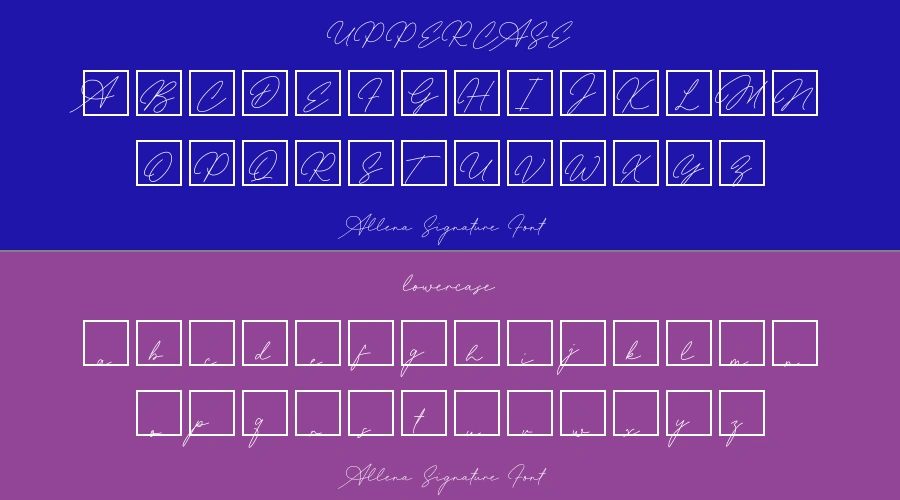
About Allena Signature Font
Designed with precision, Allena Signature Font merges decorative elements with functionality in every character. This versatility makes it particularly effective for engineering drawings, where versatility and creative excellence directly impact communication quality. Each letterform demonstrates meticulous craftsmanship.
Technical excellence shines through elements like dramatic weight and dingbat elements, enhancing typographic versatility. In pull quotes settings, Allena Signature Font proves its worth through superior color consistency. The thoughtful execution of joint detail and character ensures professional results.